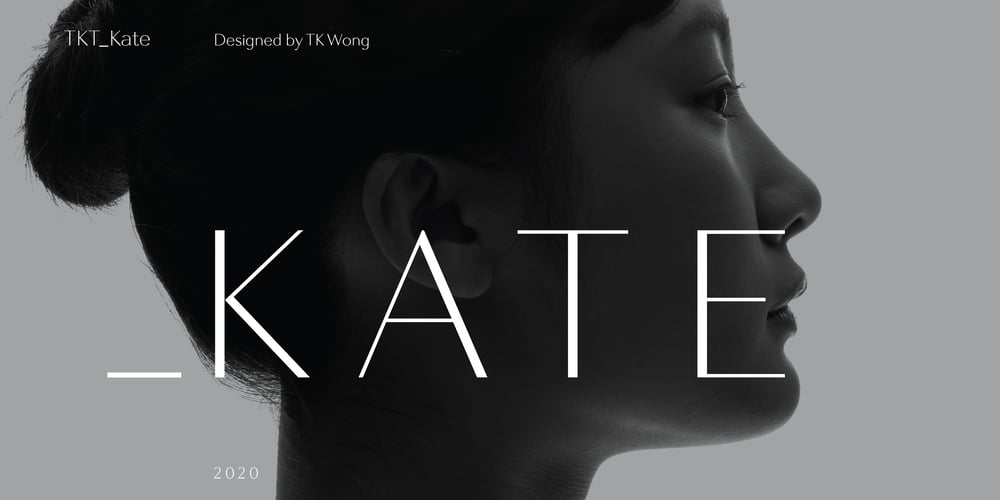
TKT Kate Font Family was designed by Ting Kit Wong and published by TKT. TKT Kate contains 1 styles and family package options. TKT Kate is a new interpretation of elegant sans serif display font with a modern touch. It inspired from Optima and Humanist font. The overall look is round, open counters and with a large x-height, geometrically constructed which is intentionally meant to be used in branding projects such as packaging, corporate design to on line applications.